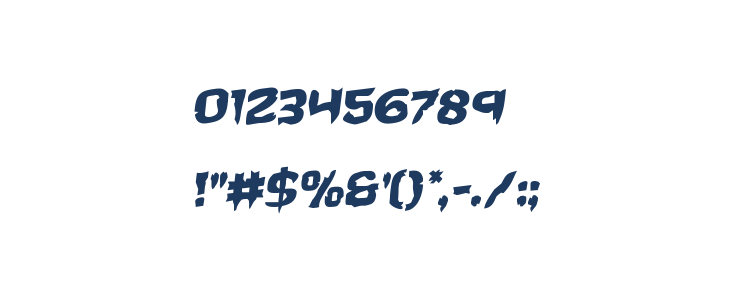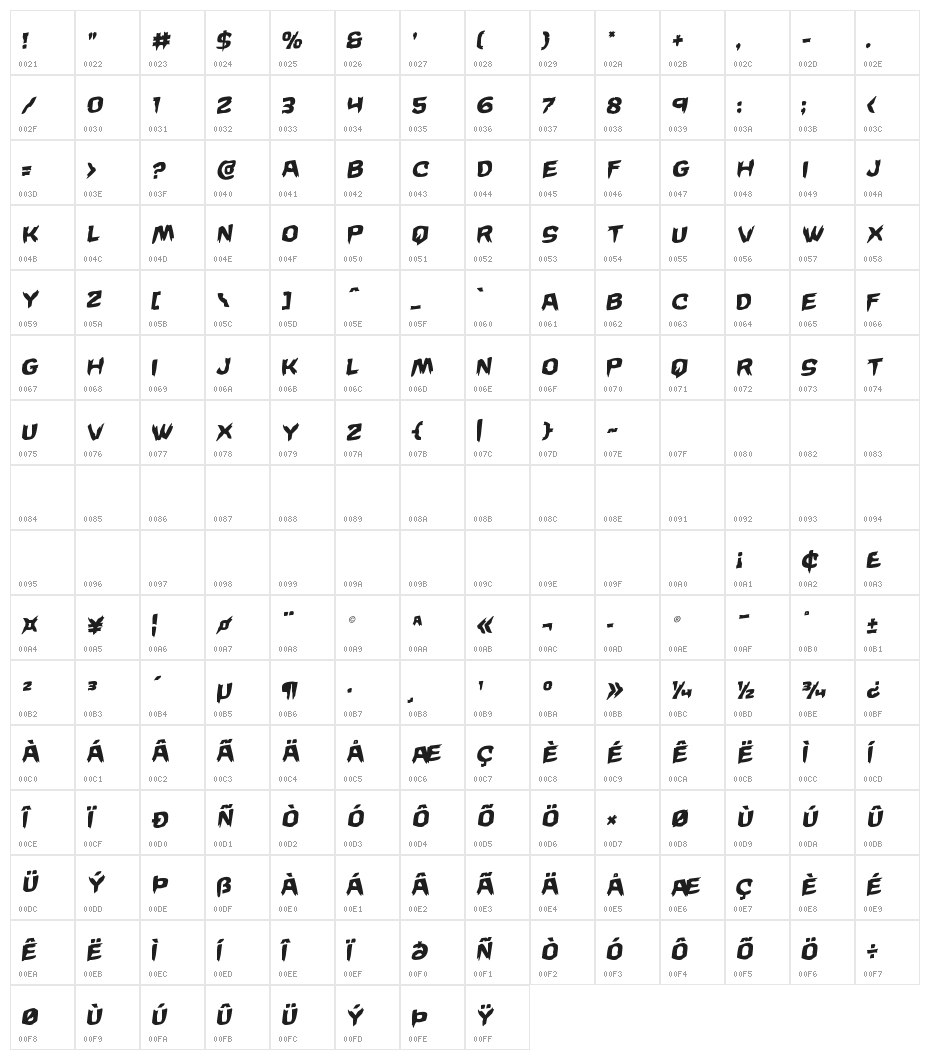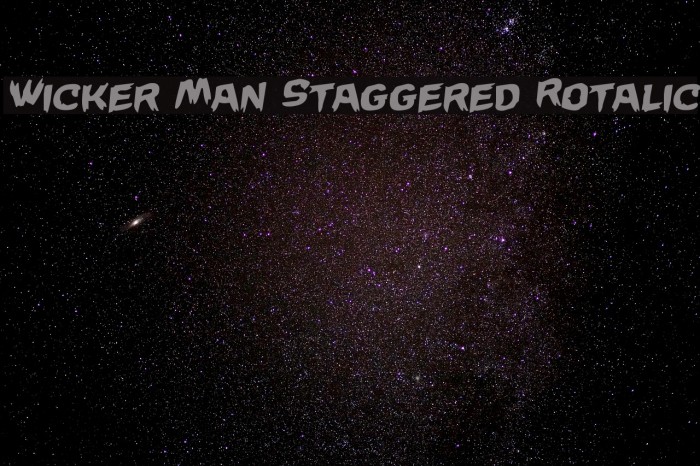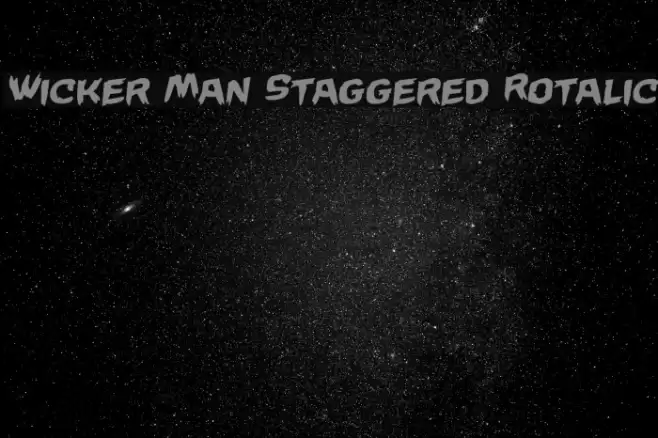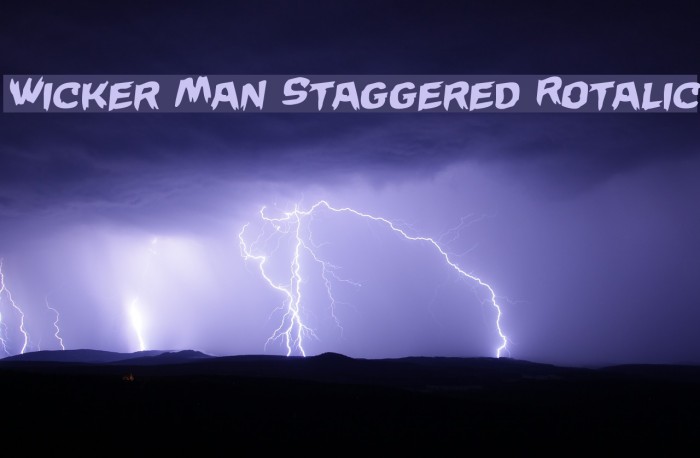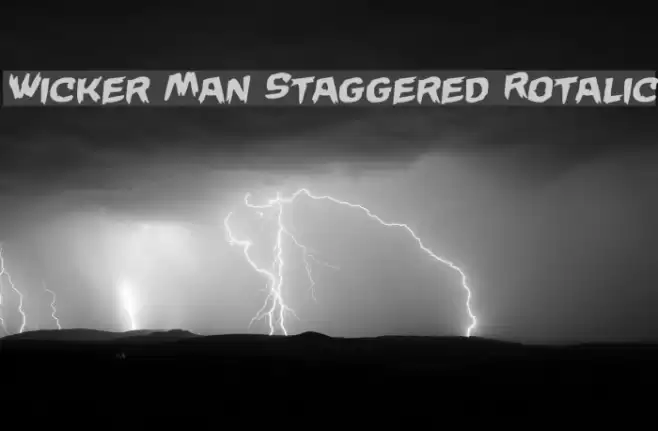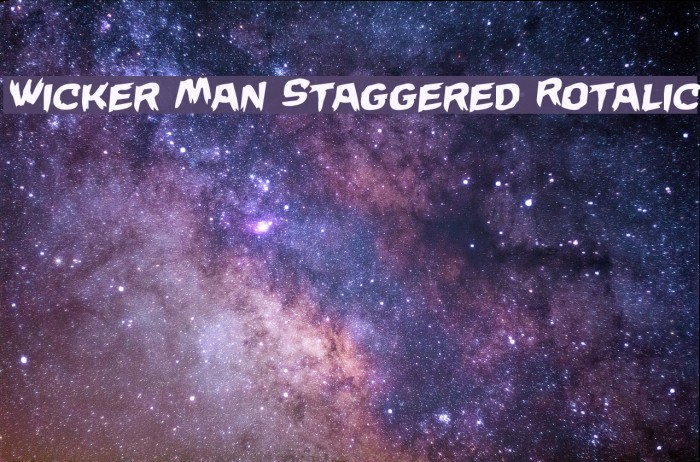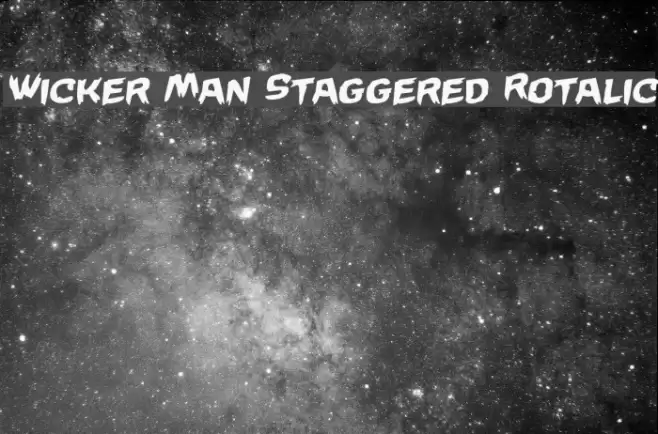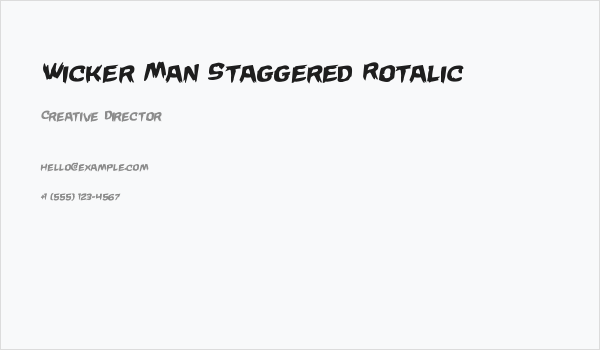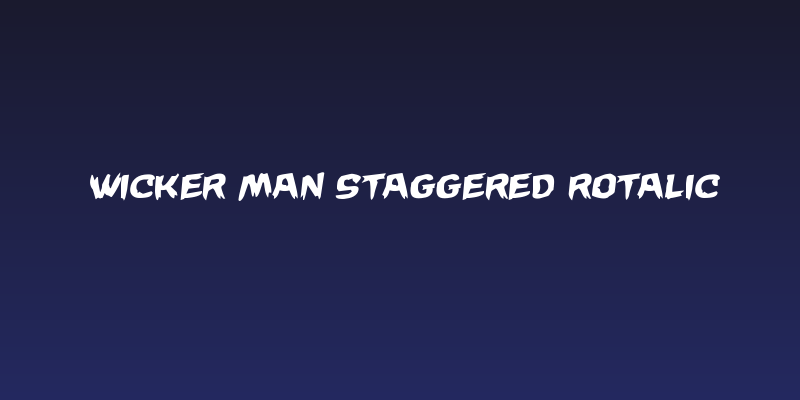
Wicker Man Staggered Rotalic Font
Wicker Man Staggered Rotalic Description
This font features a bold and dynamic style with sharp, angular edges and a staggered, italicized appearance. The characters are heavily stylized, giving a sense of movement and energy. The uppercase and lowercase letters maintain a consistent design, with exaggerated strokes and a slightly distressed look. Numbers and special characters follow the same aesthetic, making the font suitable for attention-grabbing designs. Its unique appearance makes it ideal for projects that require a dramatic and impactful visual presence.
| Proposed Projects | Ideal for movie posters, video game titles, Halloween-themed designs, and edgy branding projects. |